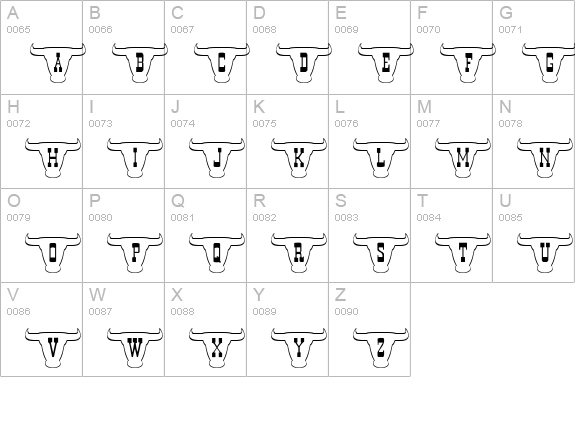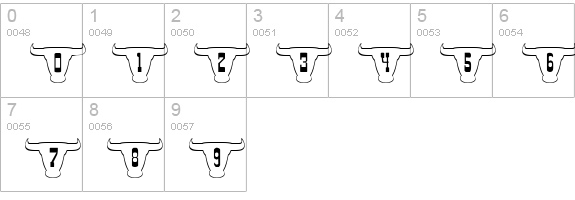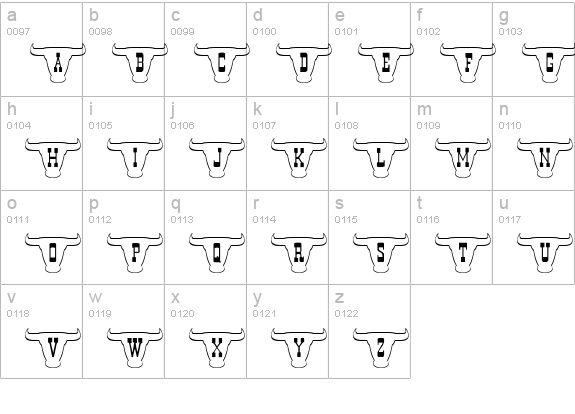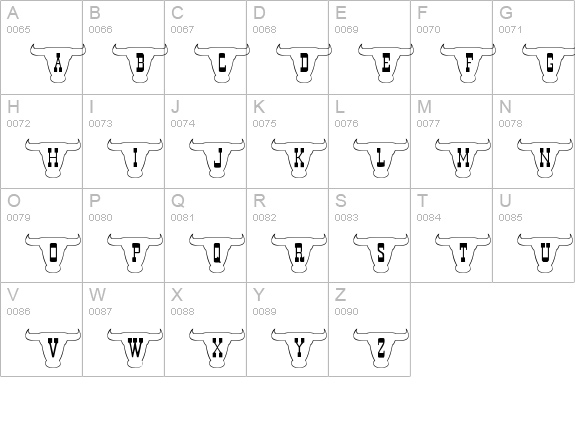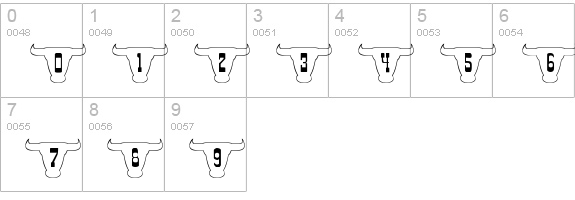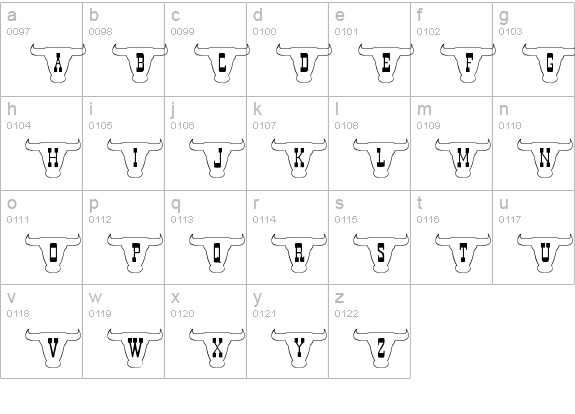
101! Texan Style font is a bold and rugged typeface inspired by the spirit of the Lone Star State. With its distinctive Western flair and strong, angular lines, this font exudes a sense of adventure and independence. Perfect for creating eye-catching designs that stand out from the crowd, 101! Texan Style font is a versatile choice for any project that needs a touch of Texan charm. And the best part? This font is available for free download at FontsMarket.com! Embrace the wild beauty of Texas with 101! Texan Style font and let your creativity run free.